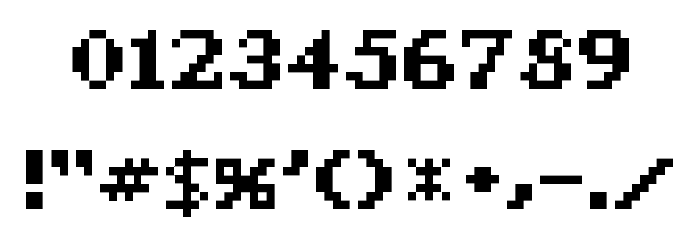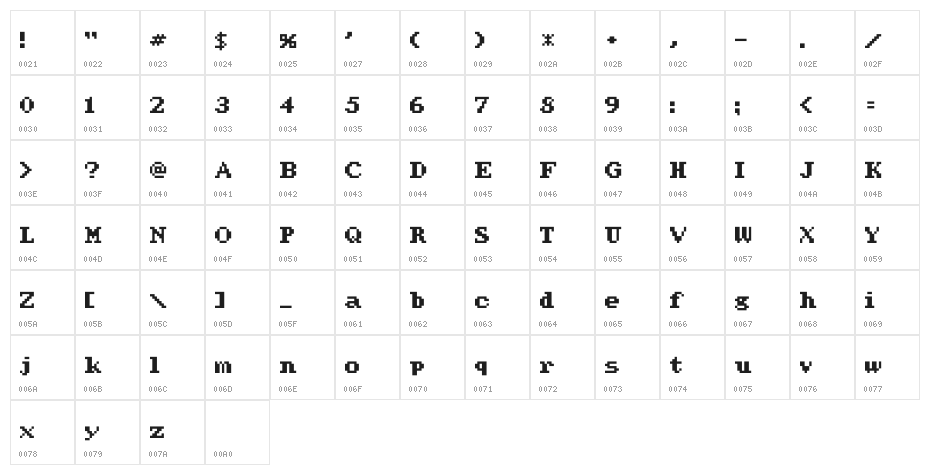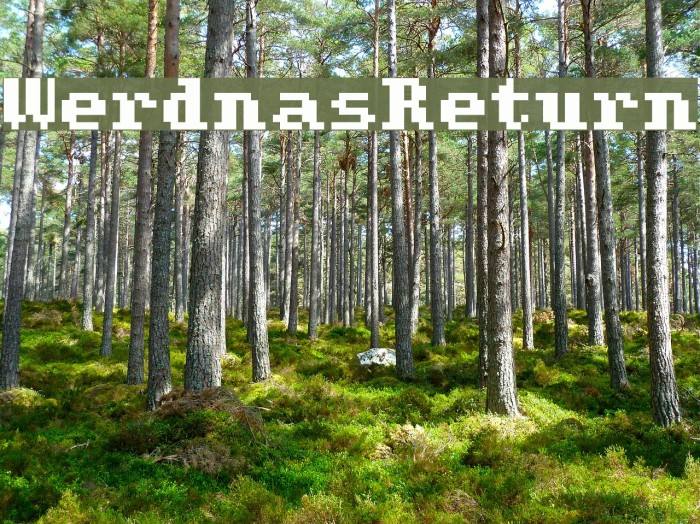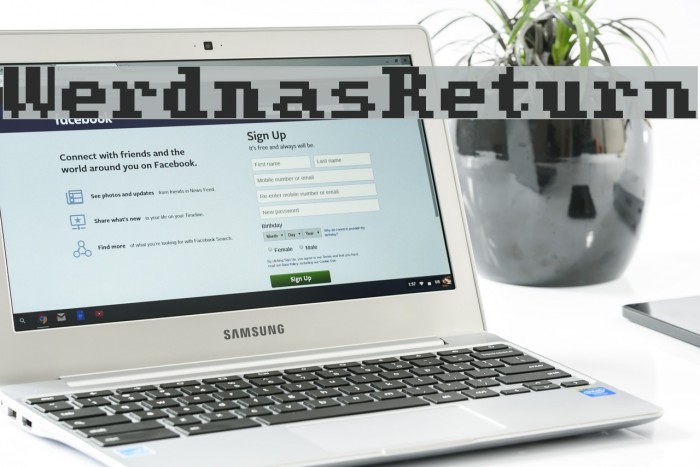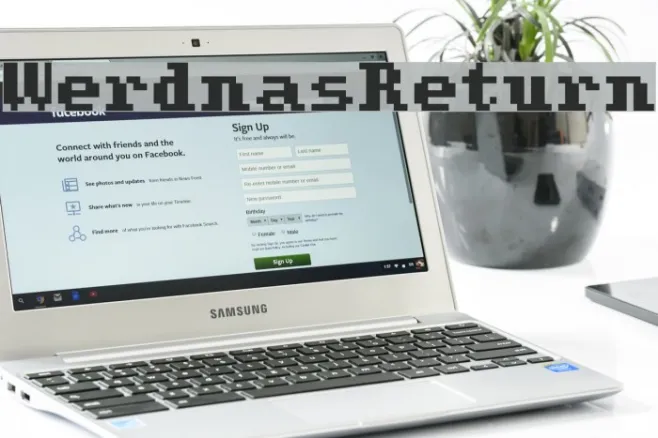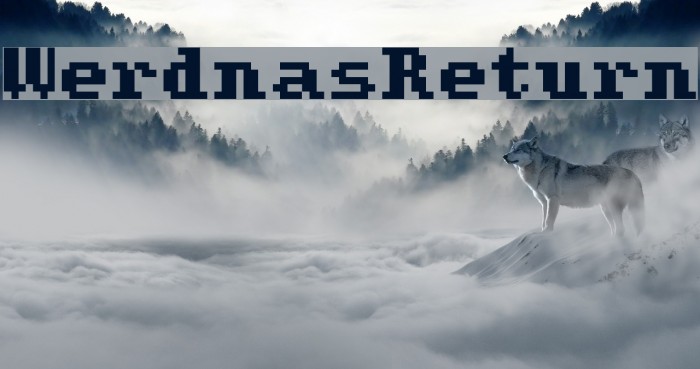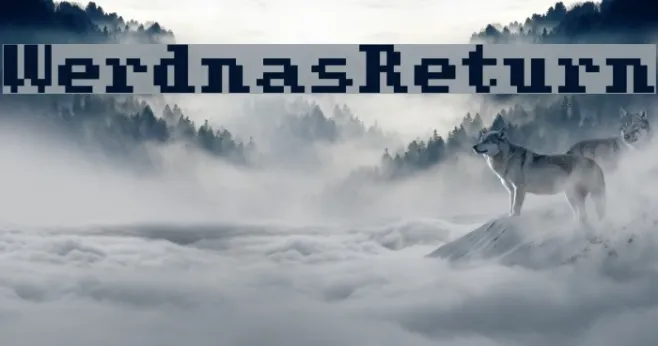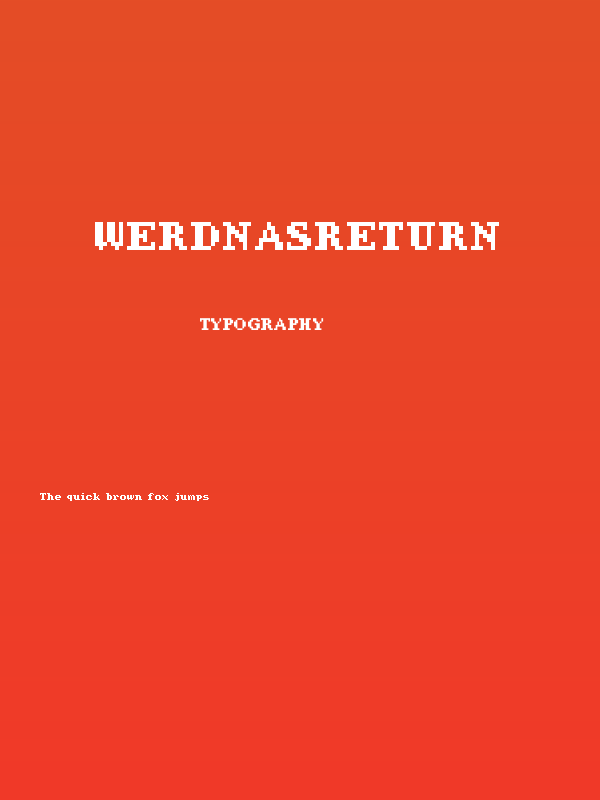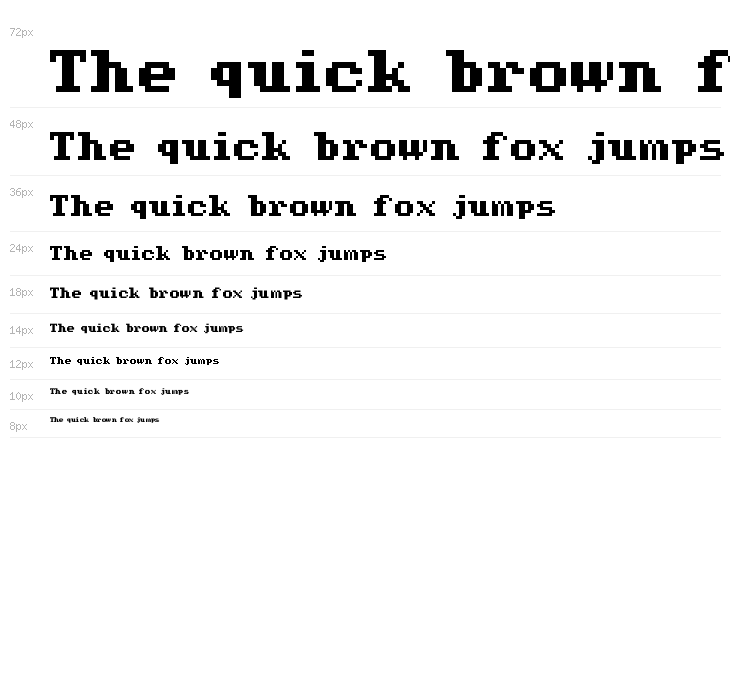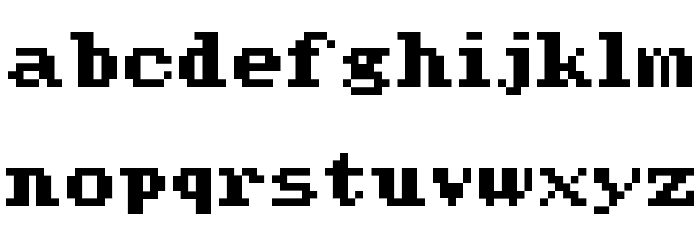
WerdnasReturn Font
WerdnasReturn Description
This font features a bold, pixelated style reminiscent of early digital or video game typography. Each character is constructed with a blocky, grid-like appearance, giving it a retro, 8-bit aesthetic. The uppercase and lowercase letters maintain a consistent height and width, contributing to a uniform look. Numbers and special characters follow the same design principles, ensuring cohesion across all glyphs. The font's distinct style makes it highly recognizable and suitable for projects that aim to evoke nostalgia or a vintage digital feel.
| Use Case | Logos, Headlines, Digital Art |
| Proposed Projects | Ideal for video game design, retro-themed posters, digital art projects, and any creative work that seeks to capture a nostalgic, vintage digital vibe. |